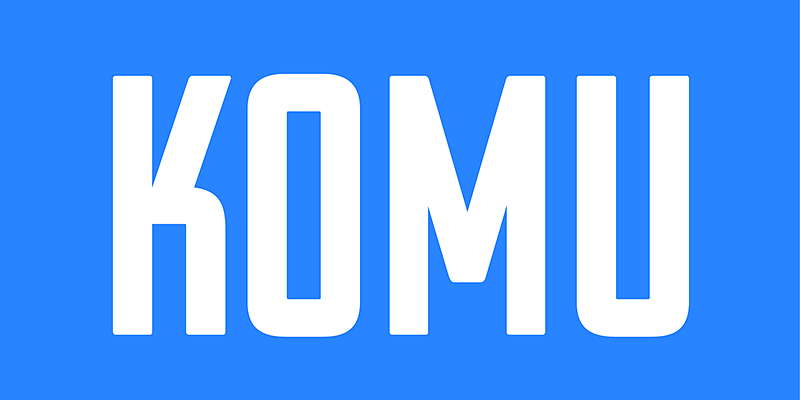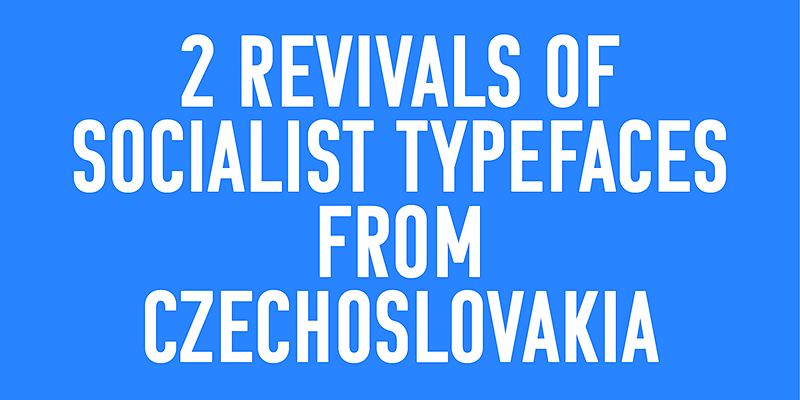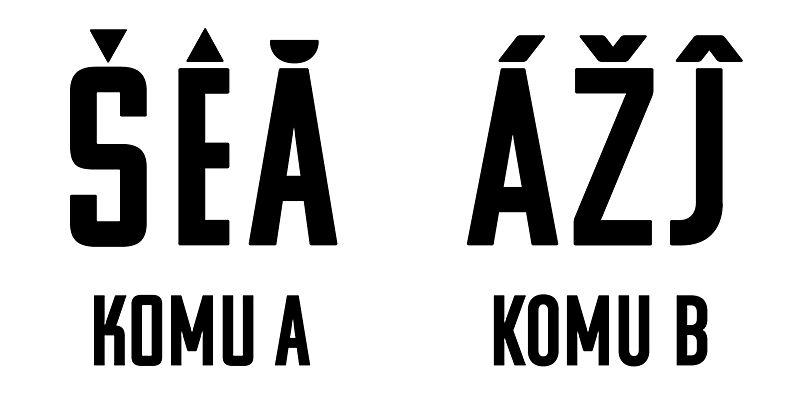
Komu is a revival of the style of letters that was frequently used on billboards during the socialist period in the former Czechoslovakia. They were usually uppercase letters made of paper and covered with a layer of aluminum foil. People just had to pick the letters (that included a variety of widths and sizes) out of a box and pin them up on a styrofoam billboard, thus making it easy to announce any event.
Komu consists of two styles. Version A is squarish and includes some distinctive characters (K, 5, narrow E, and idiosyncratic diacritics) while version B is rounded with mostly uniform widths (with the exception of E, F and L). The optical disparity of the original lettering style was retained, so that some of the characters look slightly darker than others.  Komu is intended to be used on posters, books and other products about Socialism in our region and includes full support for languages based on latin script.